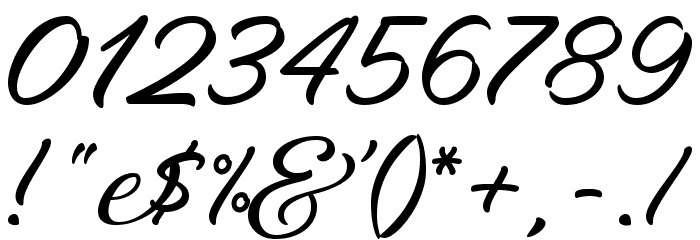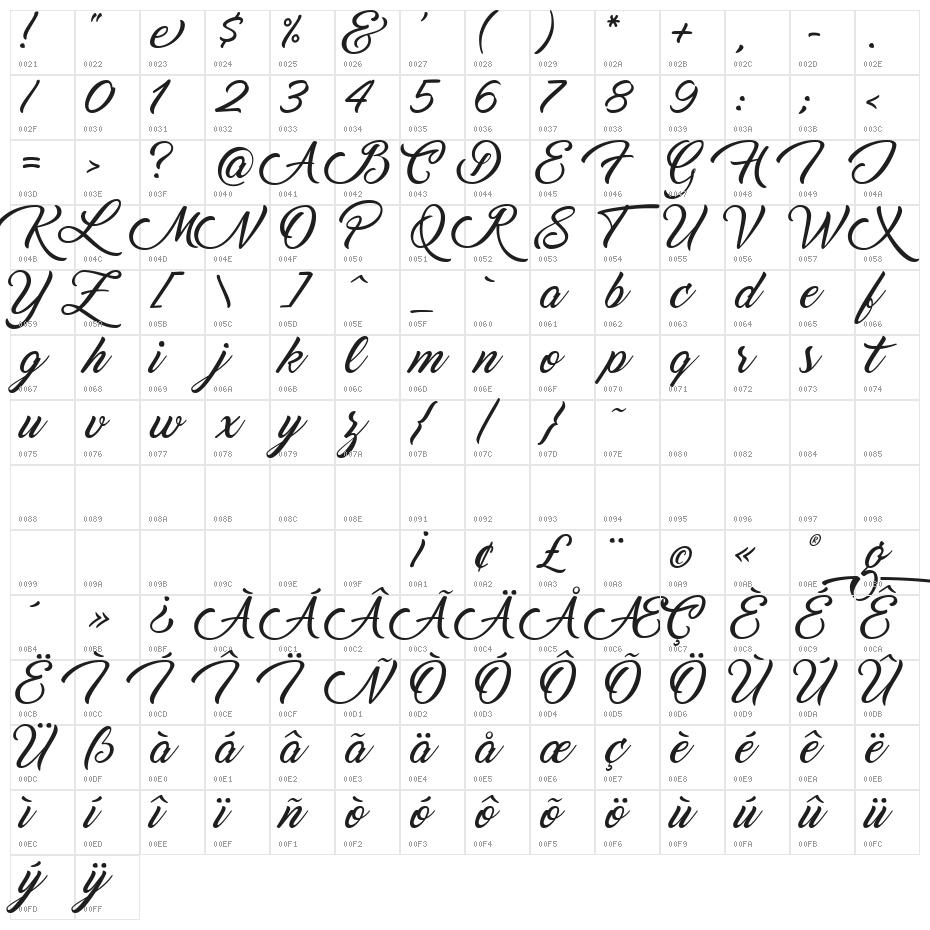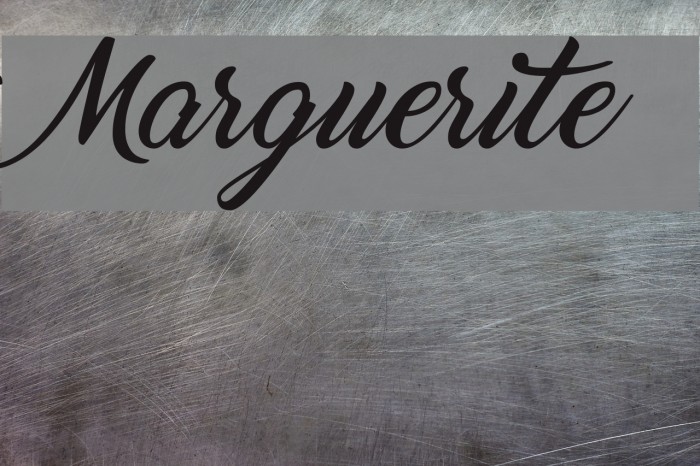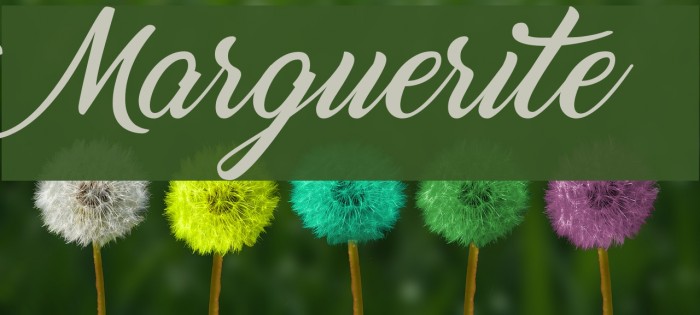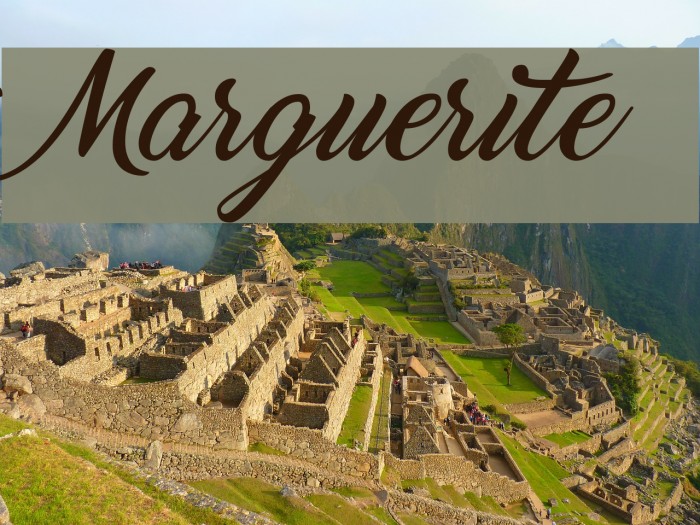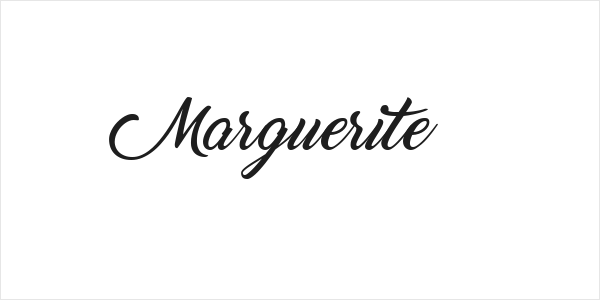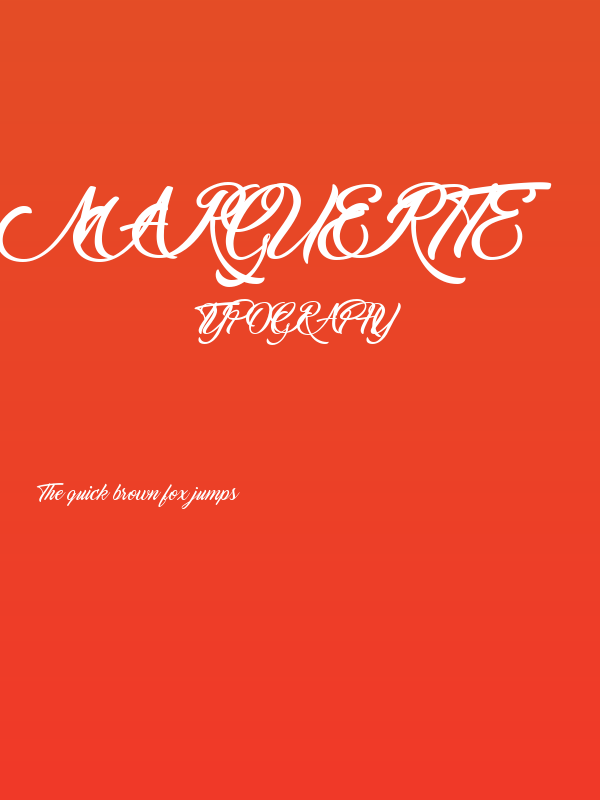
Marguerite Font
Marguerite Description
This elegant script font features flowing, cursive letterforms with a sophisticated and artistic flair. The uppercase letters are ornate and decorative, with intricate loops and swashes that give them a sense of movement and grace. The lowercase letters maintain a consistent style, with smooth, connected strokes that enhance readability while preserving the font's decorative nature. The numerals are styled to match the cursive letters, offering a cohesive look across all characters. Special characters are thoughtfully designed to complement the overall aesthetic, making this font suitable for a variety of creative applications.
| Use Case | Logos, Invitations, Decorative text |
| Proposed Projects | Ideal for wedding invitations, elegant branding, greeting cards, and artistic projects. |